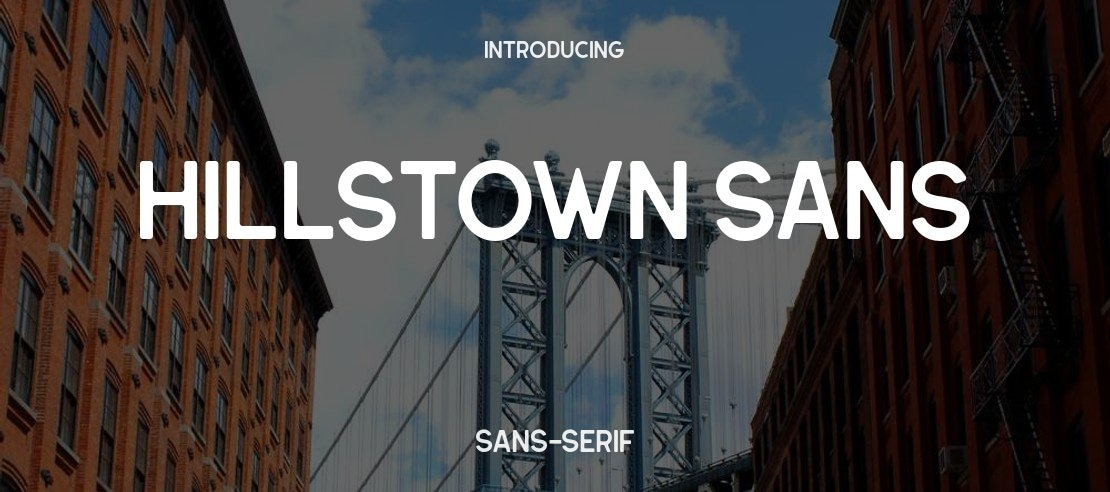
Hillstown Sans Font
The reason Hillstown Sans Font is genuinely exciting is its dedication to retro flair combined with supreme functionality. It offers a unique dual structure—featuring a regular Sans and a space-saving Condensed Sans—allowing for dynamic and varied headline composition. Furthermore, the availability of both a Clean style and an Aged (rough/textured) style gives designers ultimate control over the vintage effect, making it an invaluable tool for creating authentic-looking, high-impact branding.
The Hillstown Sans Font family is rich in styles, offering both the primary Hillstown Sans and the compressed Hillstown Condensed styles. Each style is typically provided in two essential looks: Clean (Regular) and Aged (Rough), doubling your design options. The full collection often extends this even further by including a script font companion. For a robust and authentic vintage sans font solution, secure your Hillstown Sans Font Free Download today.